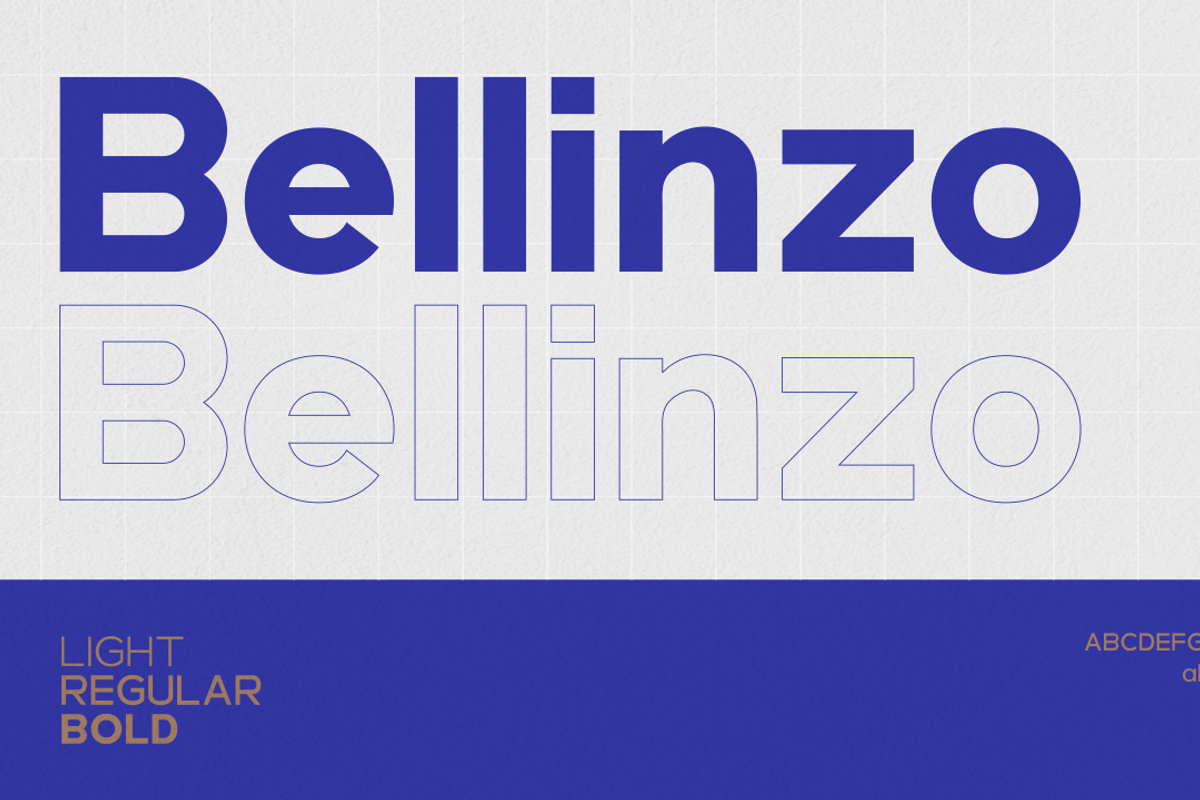
Elevate your design projects with BELLINZO Font Free Download, a modern and luxurious typeface perfect for high-end branding and editorial layouts. You need to purchase this font for commercial use. However, you can test it in personal or demo projects with BELLINZO Font Free Download. With its sleek lines, elegant curves, and sophisticated presence, this font is ideal for logos, fashion campaigns, packaging, and website headers. Designers appreciate its premium aesthetic and strong visual impact. Download BELLINZO Font Free Download today and bring a refined, contemporary edge to your creative work with this stunning typeface.